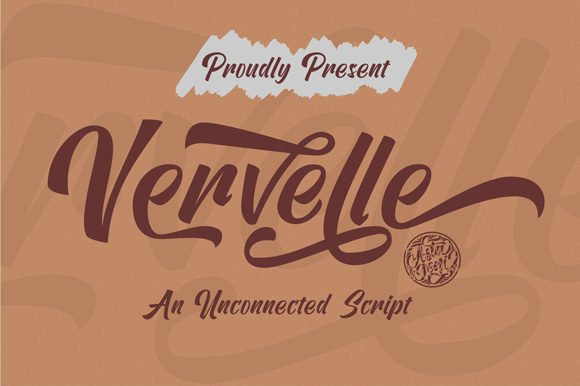
Vervelle Script - Free Font With Commercial License
Vervelle feels charming and vibrant and will turn any design project into a true standout. Get inspired by its unique charm!